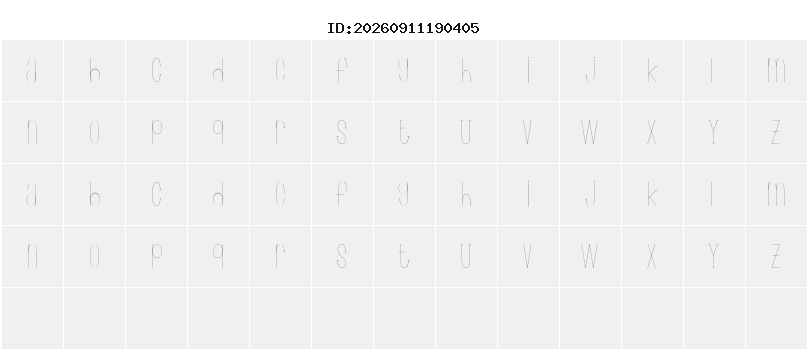
Wonderlust.ttf
• Font Name: Wonderlust
• Designer: Brenna Noel Martin
About Wonderlust.ttf
Wonderlust.ttf is a modern, elegant sans-serif font designed for ultimate readability and visual harmony. Perfect for branding, headlines, web design, and print materials.